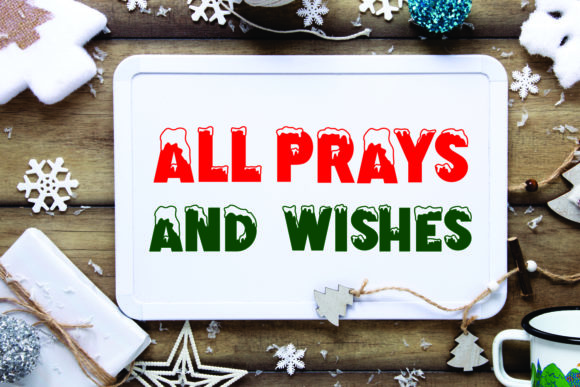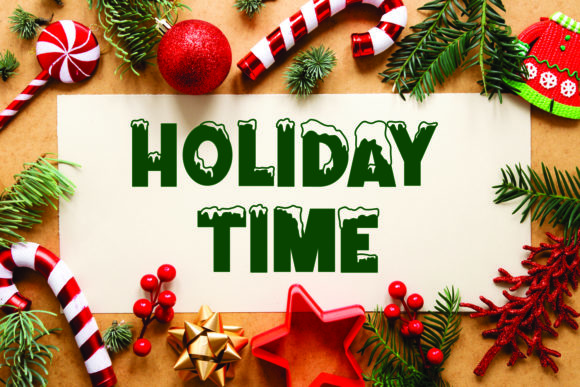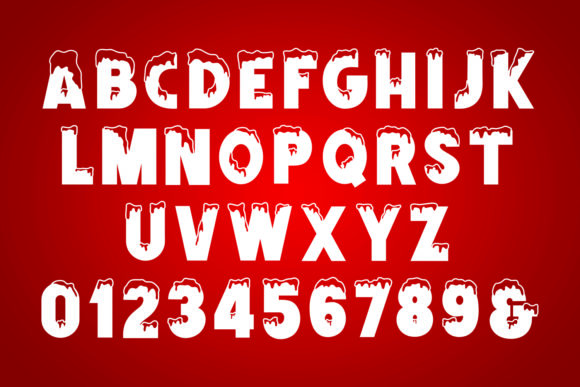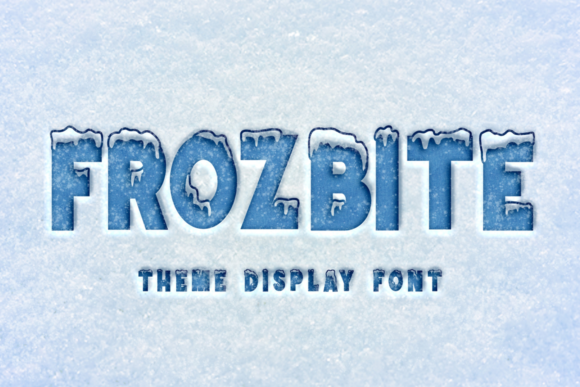
Frozbite Font: The Perfect Addition to Your Winter Designs
As the winter season approaches, designers and crafters are on the lookout for the perfect font to add a touch of frosty charm to their projects. Look no further than Frozbite Font, a bold and chunky lettered display font that’s sure to make your winter-related designs stand out.
What is Frozbite Font?
Frozbite Font is a unique and eye-catching font that’s specifically designed to add a touch of winter wonder to your designs. With its bold and chunky lettering, it’s perfect for creating eye-catching headlines, titles, and graphics that will grab attention and leave a lasting impression.
Key Features of Frozbite Font
- Bold and Chunky Lettering: Frozbite Font features bold and chunky lettering that’s perfect for creating eye-catching headlines and titles.
- Winter-Themed Design: The font’s winter-themed design makes it perfect for use in winter-related designs, such as Christmas cards, winter-themed posters, and more.
- Easy to Read: Despite its bold and chunky design, Frozbite Font is easy to read, making it perfect for use in a variety of design projects.
- Versatile: Frozbite Font can be used in a variety of design projects, from digital designs to print projects.
- Use it Sparingly: While Frozbite Font is bold and eye-catching, it can be overwhelming if used too much. Use it sparingly to create emphasis and draw attention to specific parts of your design.
- Experiment with Colors: Frozbite Font looks great in a variety of colors, from icy blues and whites to bold and bright colors. Experiment with different colors to find the one that works best for your design.
- Pair it with Other Fonts: Frozbite Font pairs well with a variety of other fonts, from simple sans-serif fonts to more decorative fonts. Experiment with different font pairings to find the one that works best for your design.
Frozbite Font is a bold and chunky lettered display font that’s perfect for adding a touch of winter wonder to your designs. With its bold and chunky lettering, winter-themed design, and ease of use, it’s the perfect addition to any winter-related design project. Whether you’re a designer, crafter, or DIY enthusiast, Frozbite Font is sure to become a favorite in your design arsenal.